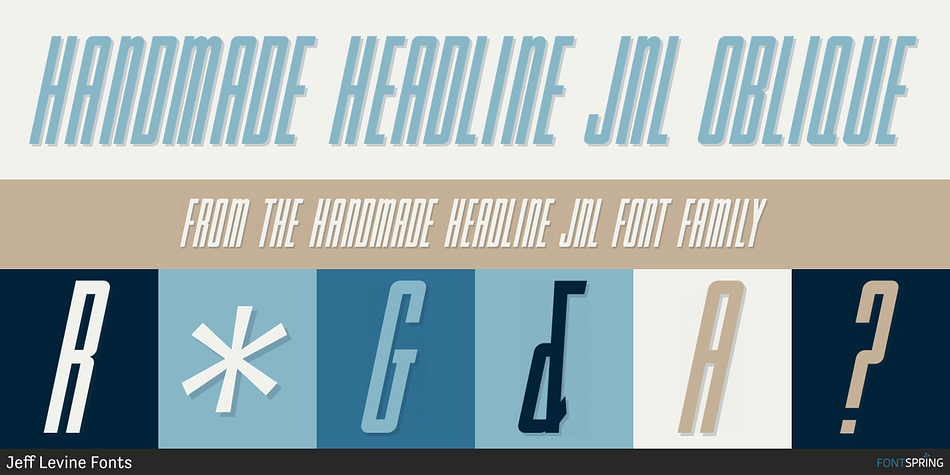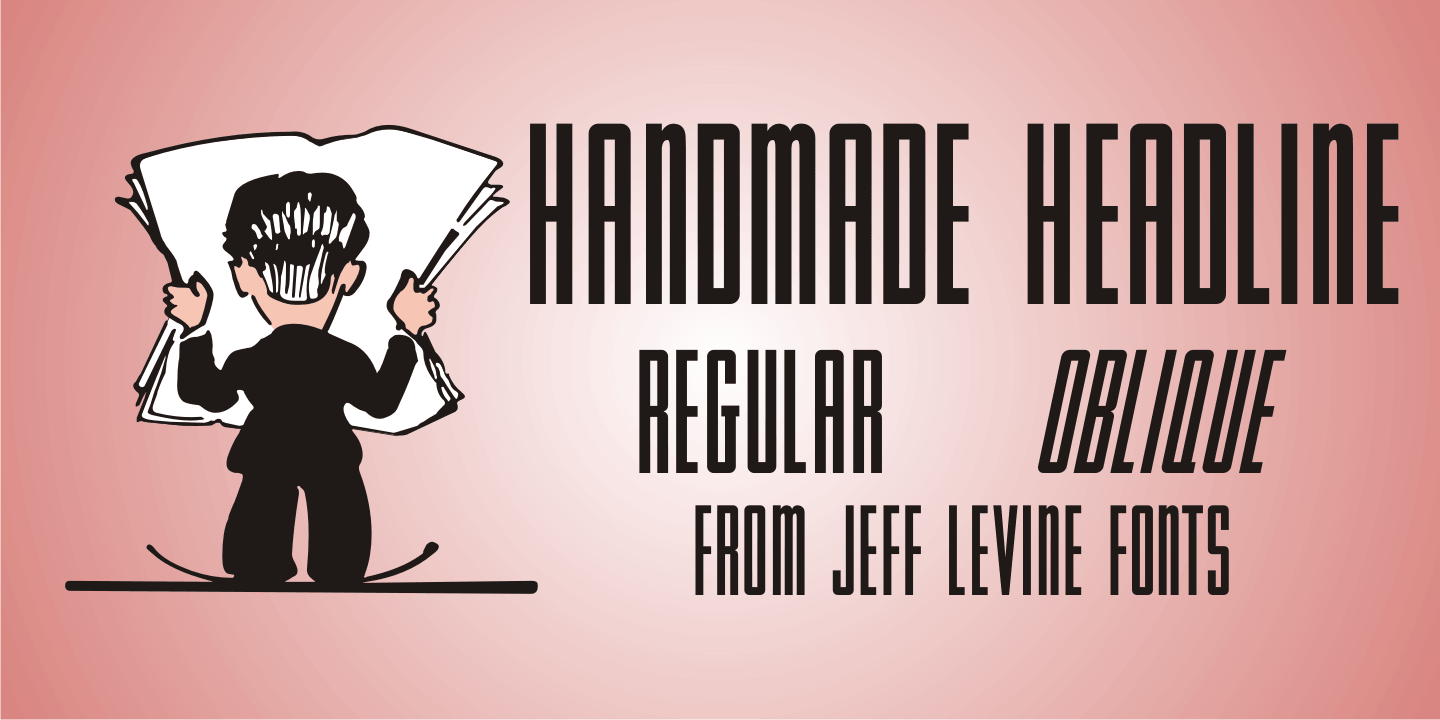
HANDMADE HEADLINE JNL OBLIQUE
Handmade Headline JNL is a display sans and art deco font family. This typeface has two styles and was published by Jeff Levine Fonts.
Hand lettered titling on the 1945 sheet music for “Don’t Forget To-Night, To-Morrow” is in a simple, condensed sans serif style with a slight hint of Art Deco influence.
This is now available as Handmade Headline JNL, in both regular and oblique versions.